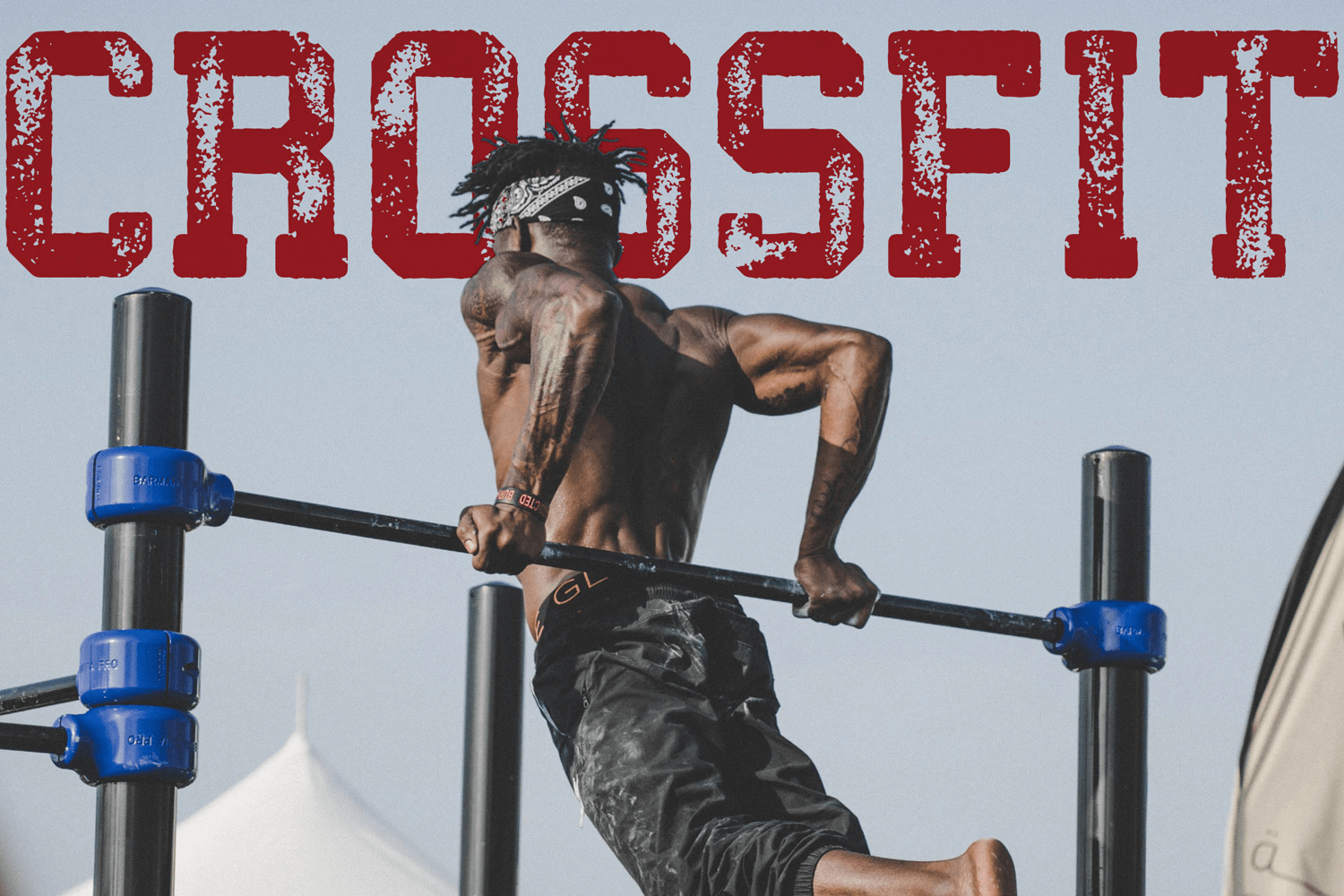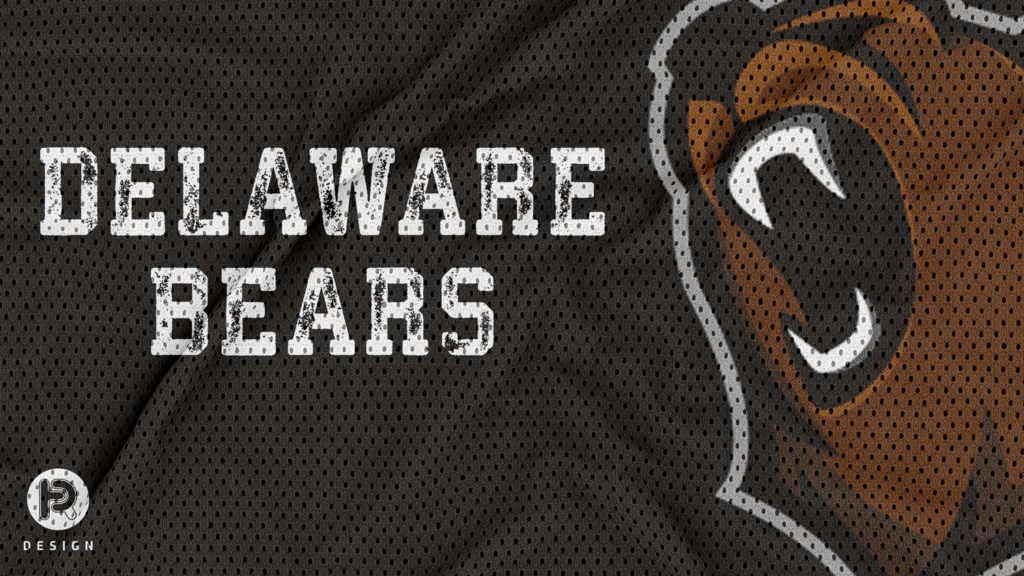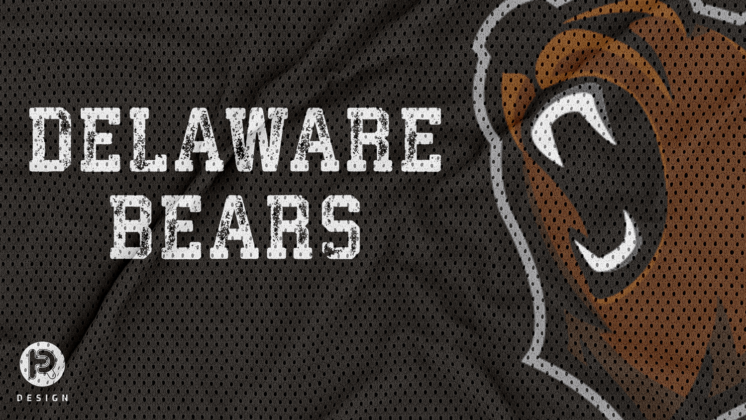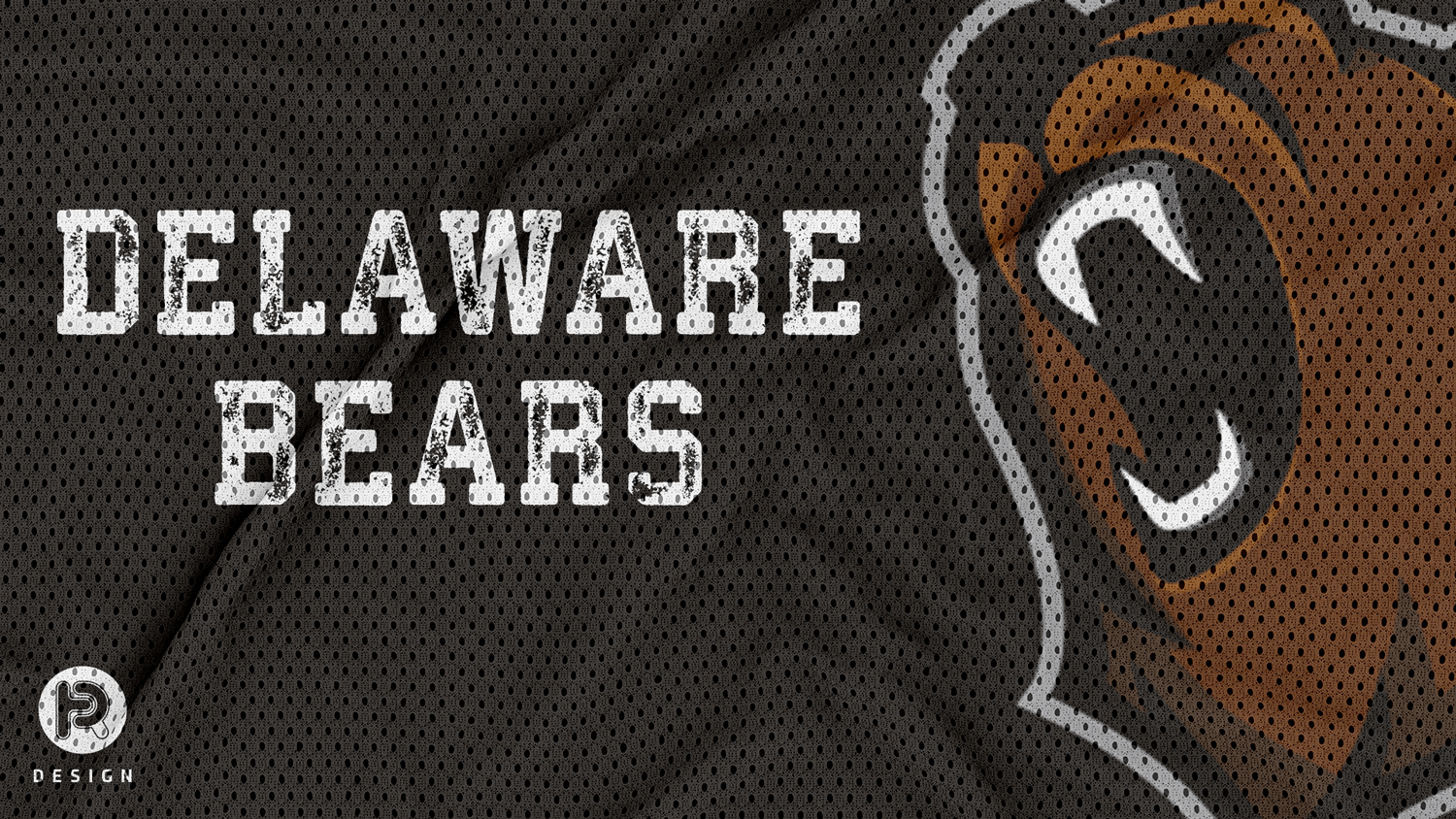
Athletico
About Athletico
Athletico is a layered type family inspired by college and university sportswear lettering. Language support includes Western, Central and Eastern European character sets, as well as Baltic and Turkish languages.